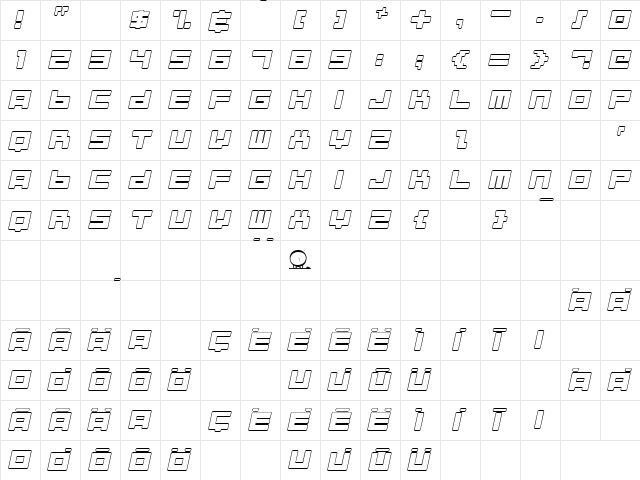
Almanaque Outline Italic
Design Context for Almanaque Outline Typeface
Almanaque Outline is built around its visual character rather than neutral utility — its distinctive forms are designed to make an impression at display sizes. The dynamic lean of this cut emphasises speed and emphasis in any layout.
Font Pairing: Pair with a clean neutral sans-serif for body copy to let Almanaque Outline's character lead without overwhelming the composition.
Pro Tip: Treat Almanaque Outline as the centrepiece of your typographic hierarchy. One strong heading set in a decorative face can carry an entire layout.